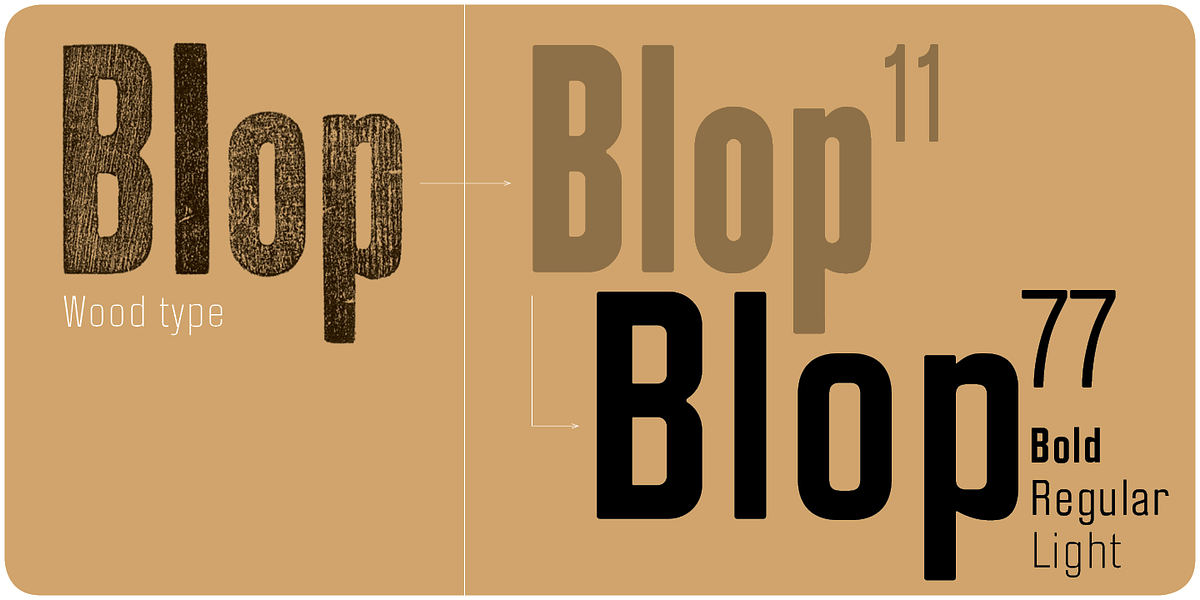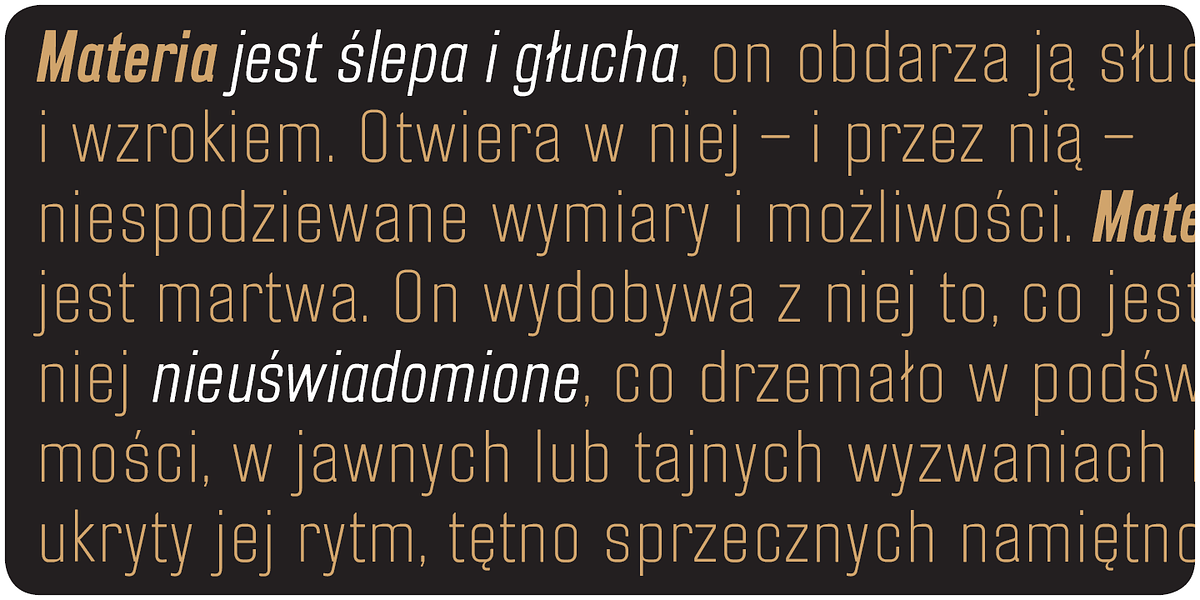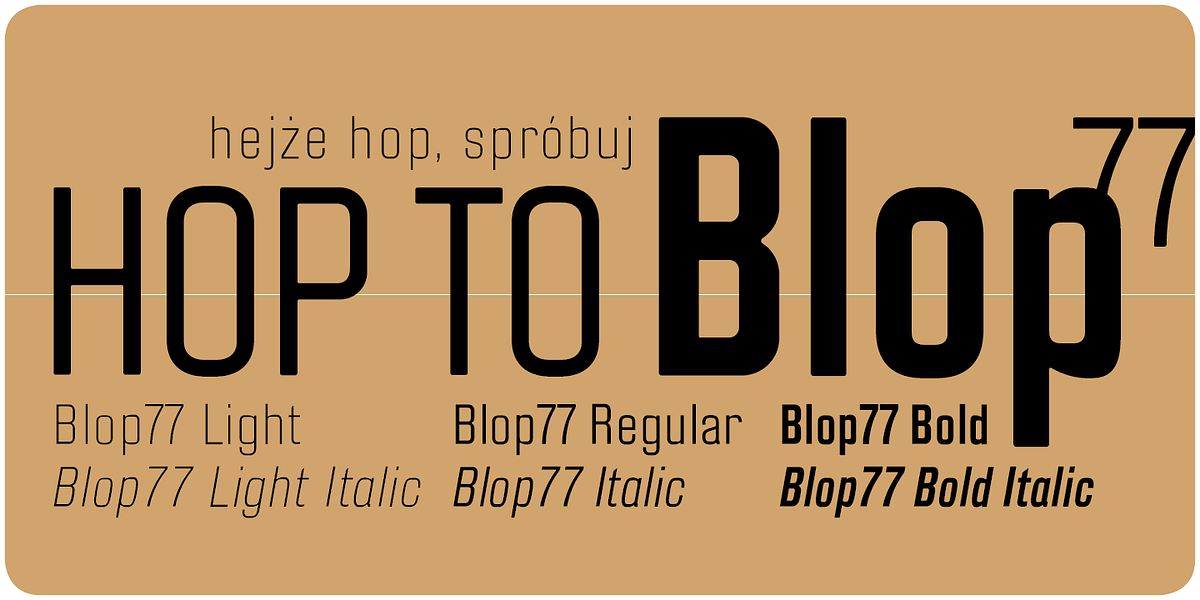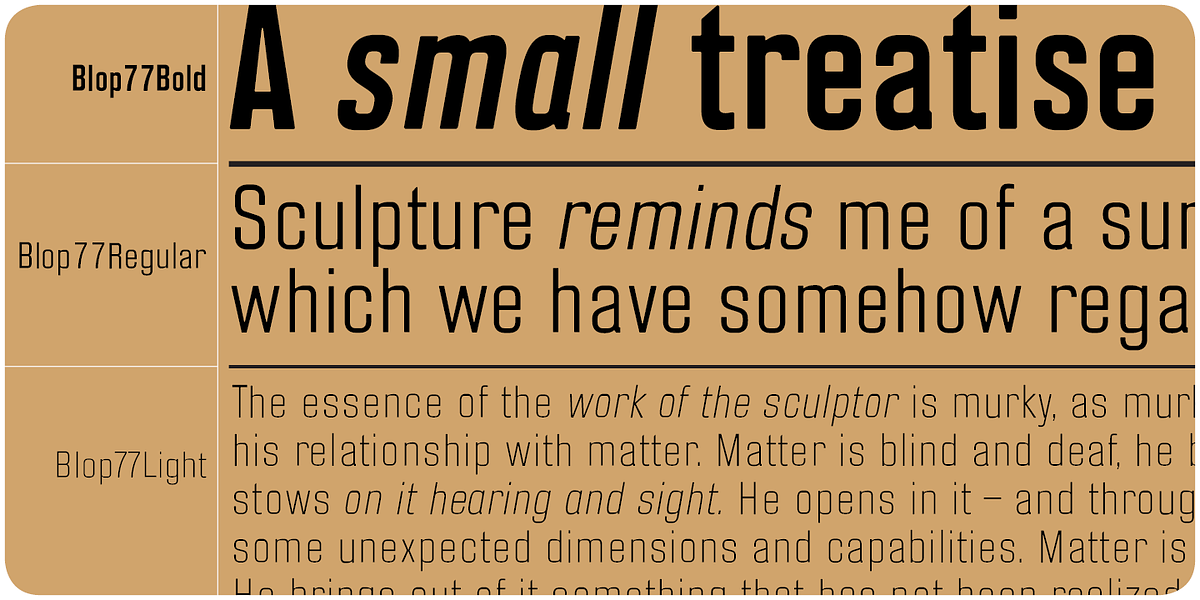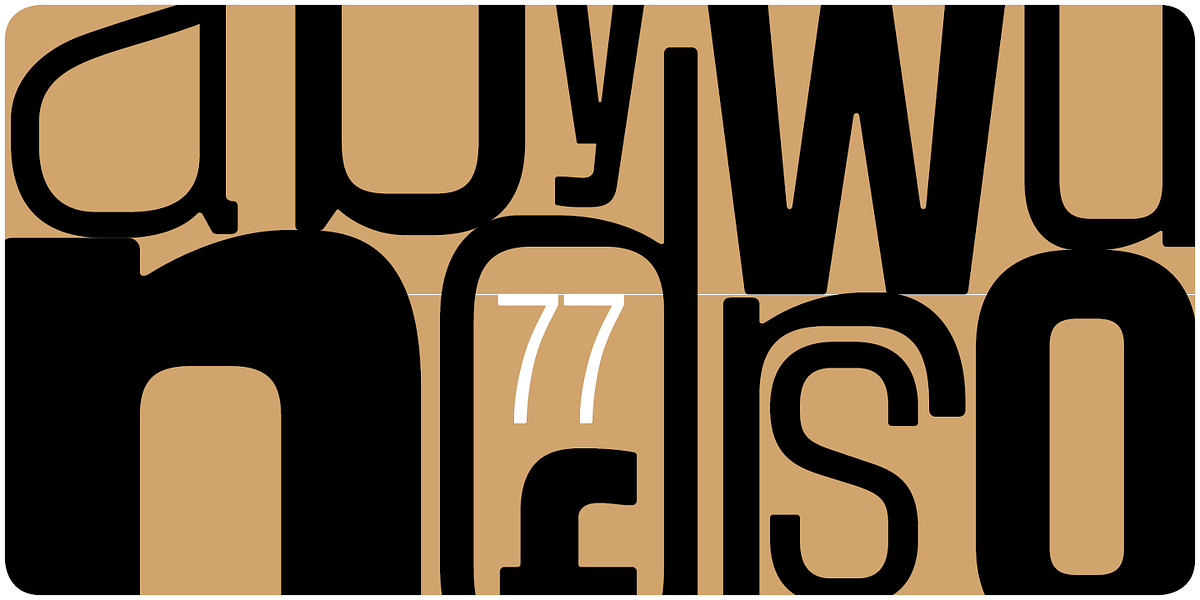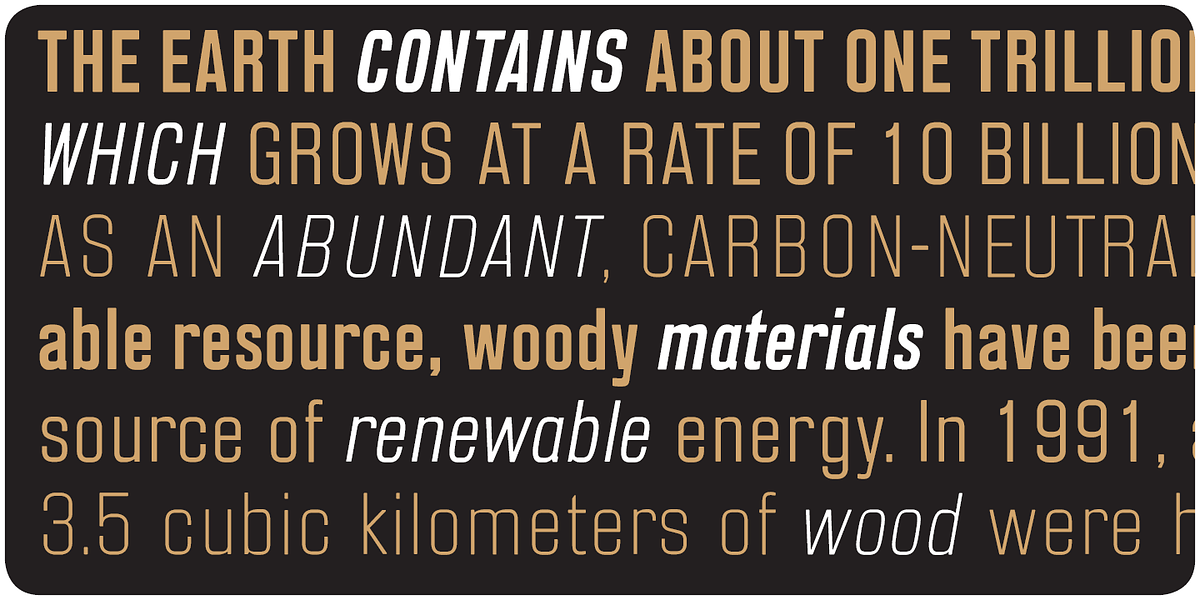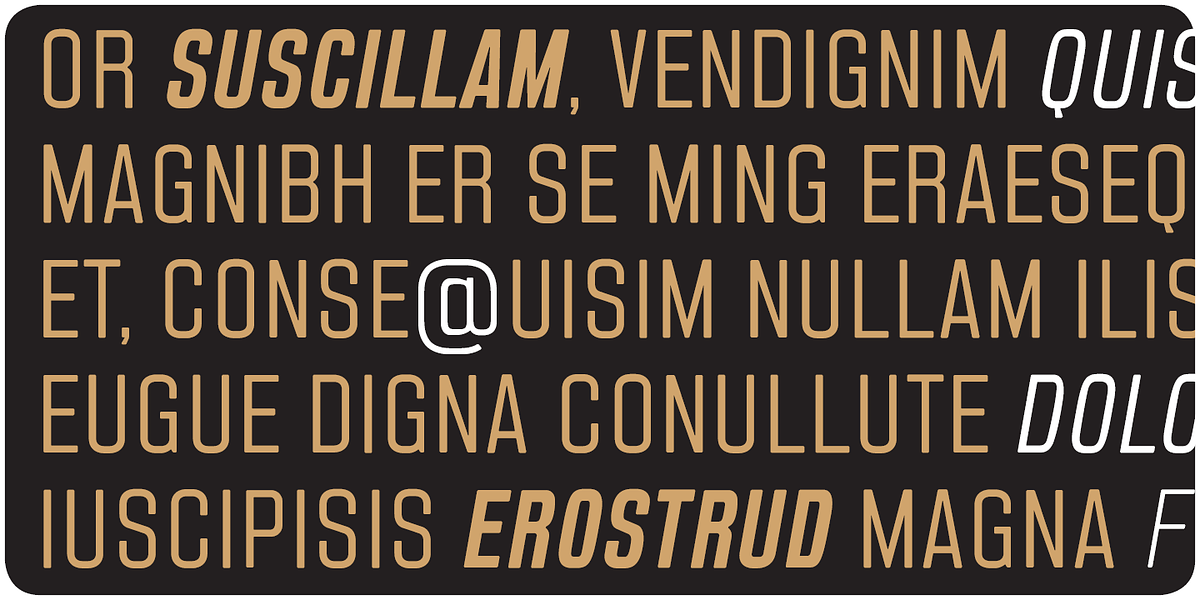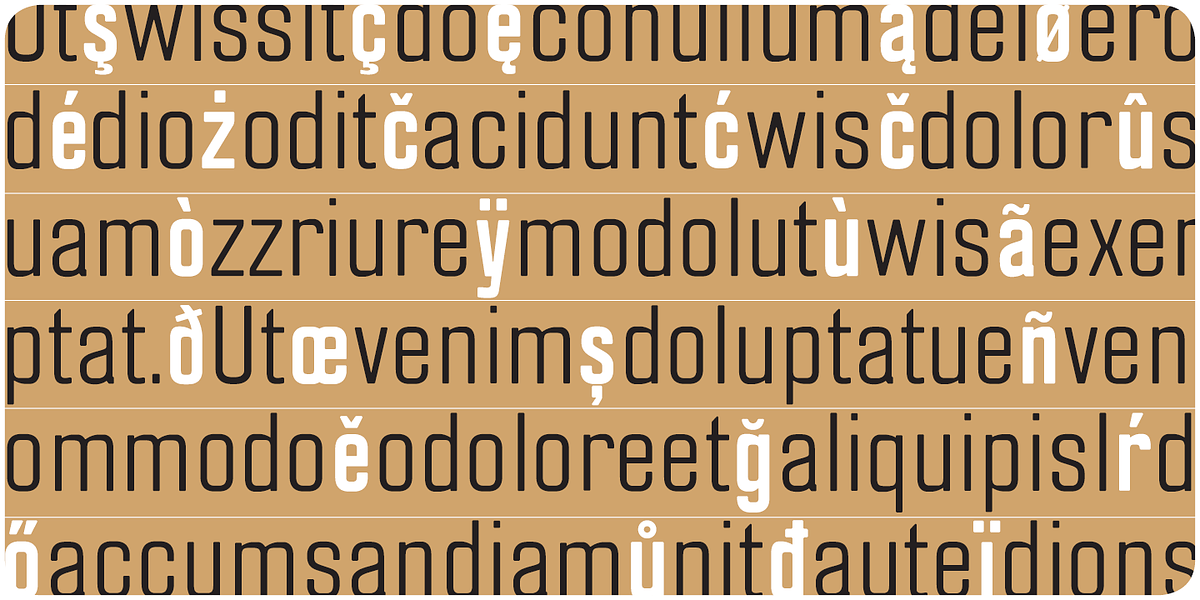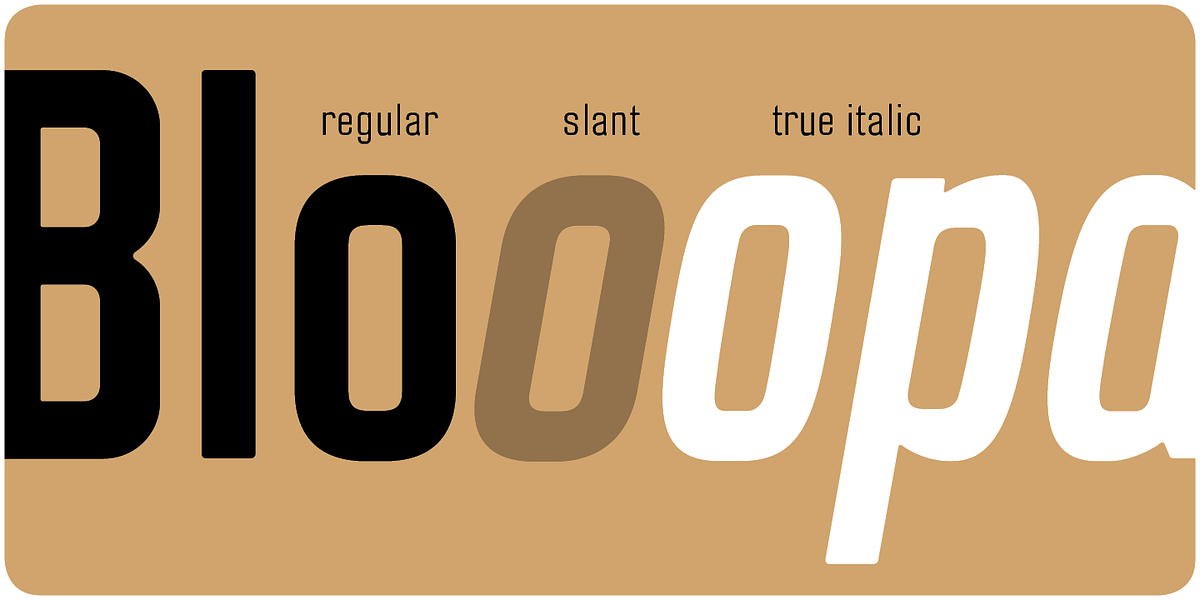
Blop 77
Blow 77 is a geometric sans-serif font family that includes three weights and matching italics. It's designed for use in headlines and short blocks of text.